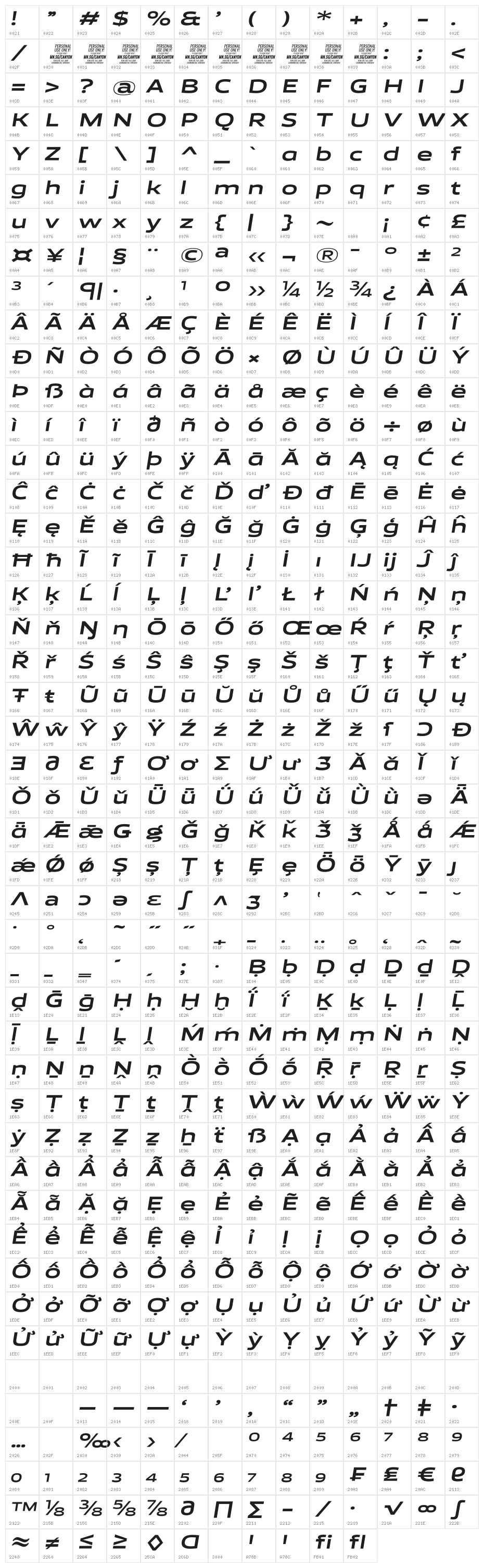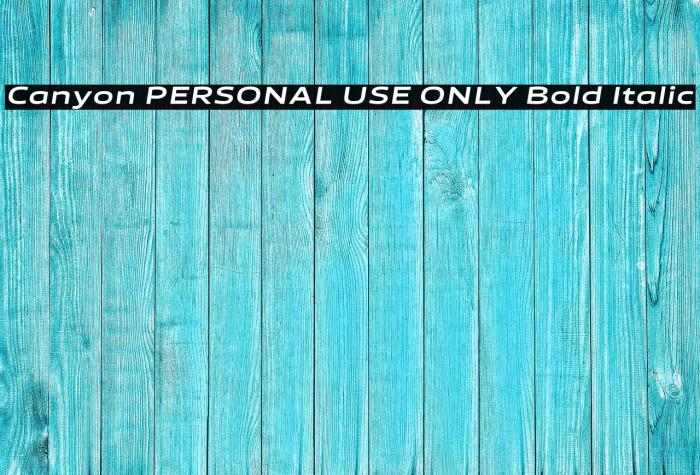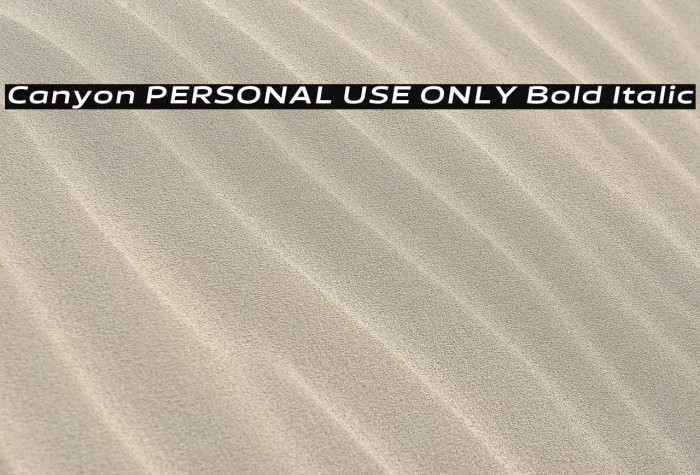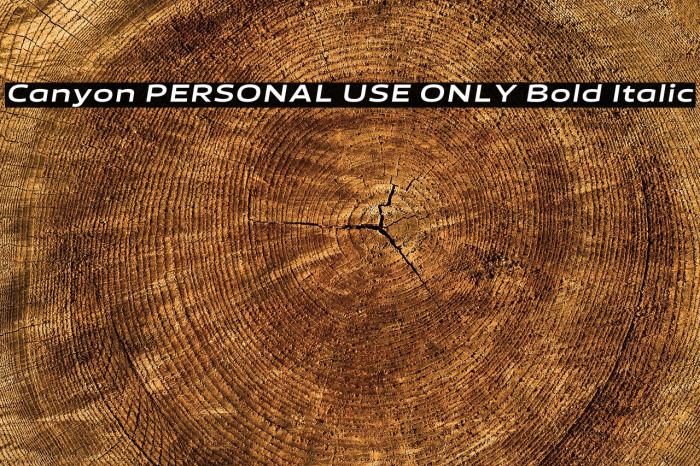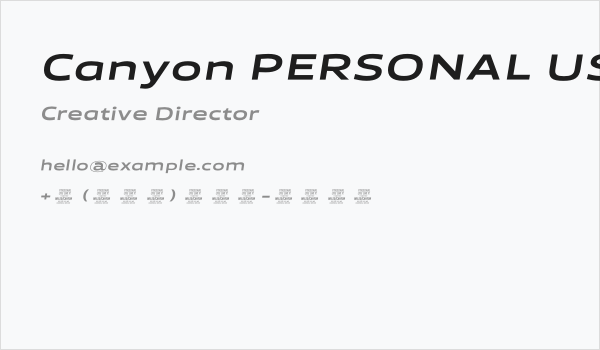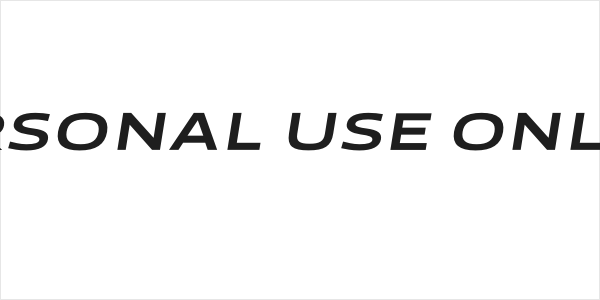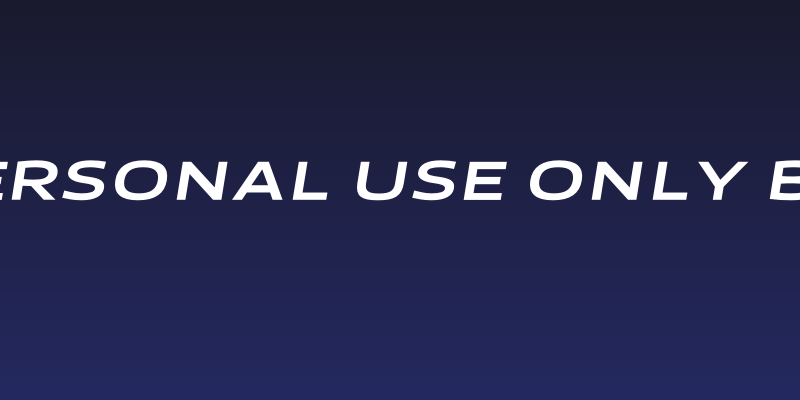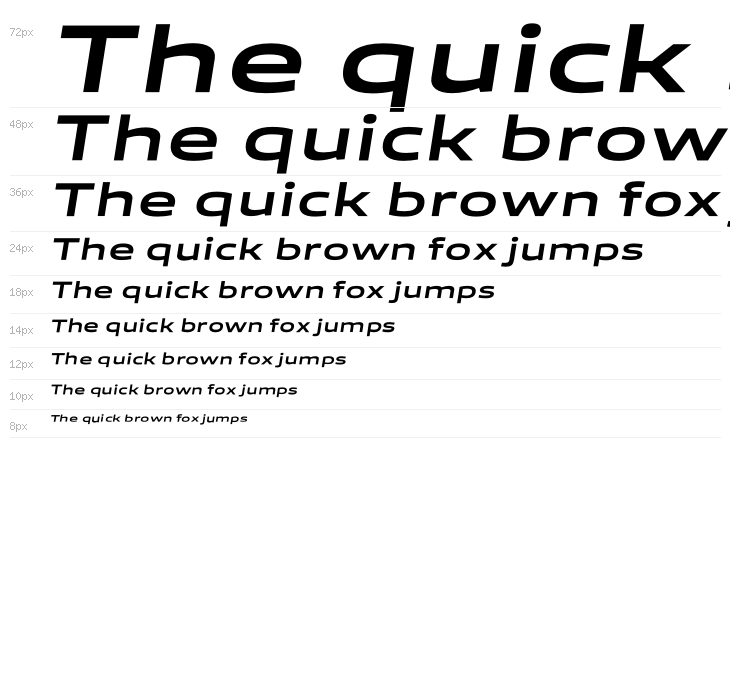
Canyon PERSONAL USE ONLY Bold Italic Font
Canyon PERSONAL USE ONLY Bold Italic Description
This font features a bold and italicized style, characterized by its sleek and modern appearance. The letters are slightly slanted, adding a dynamic and forward-moving feel. The strokes are consistent in weight, providing a uniform look across all characters. The uppercase and lowercase letters maintain a harmonious balance, with rounded edges that soften the overall aesthetic. The numerals and special characters are designed to match the alphabet's style, ensuring a cohesive look. This font's boldness makes it stand out, while the italicization adds a touch of elegance and sophistication.
| Proposed Projects | Ideal for branding, advertising, and headlines where a modern and dynamic appearance is desired. |